White Chorus is more than a band, they represent an intentional openness. A blank canvas where sound, visuals, and emotion are allowed to coexist without excess. This philosophy is evident not only in their music, but also in how they present themselves visually across stages, posters, and promotional materials.
A defining element of this identity is their use of George, a typeface designed by Dharmas Foundry. With its modern yet expressive character, George has become an integral part of White Chorus’s visual language, quietly bold, spacious, and confident.
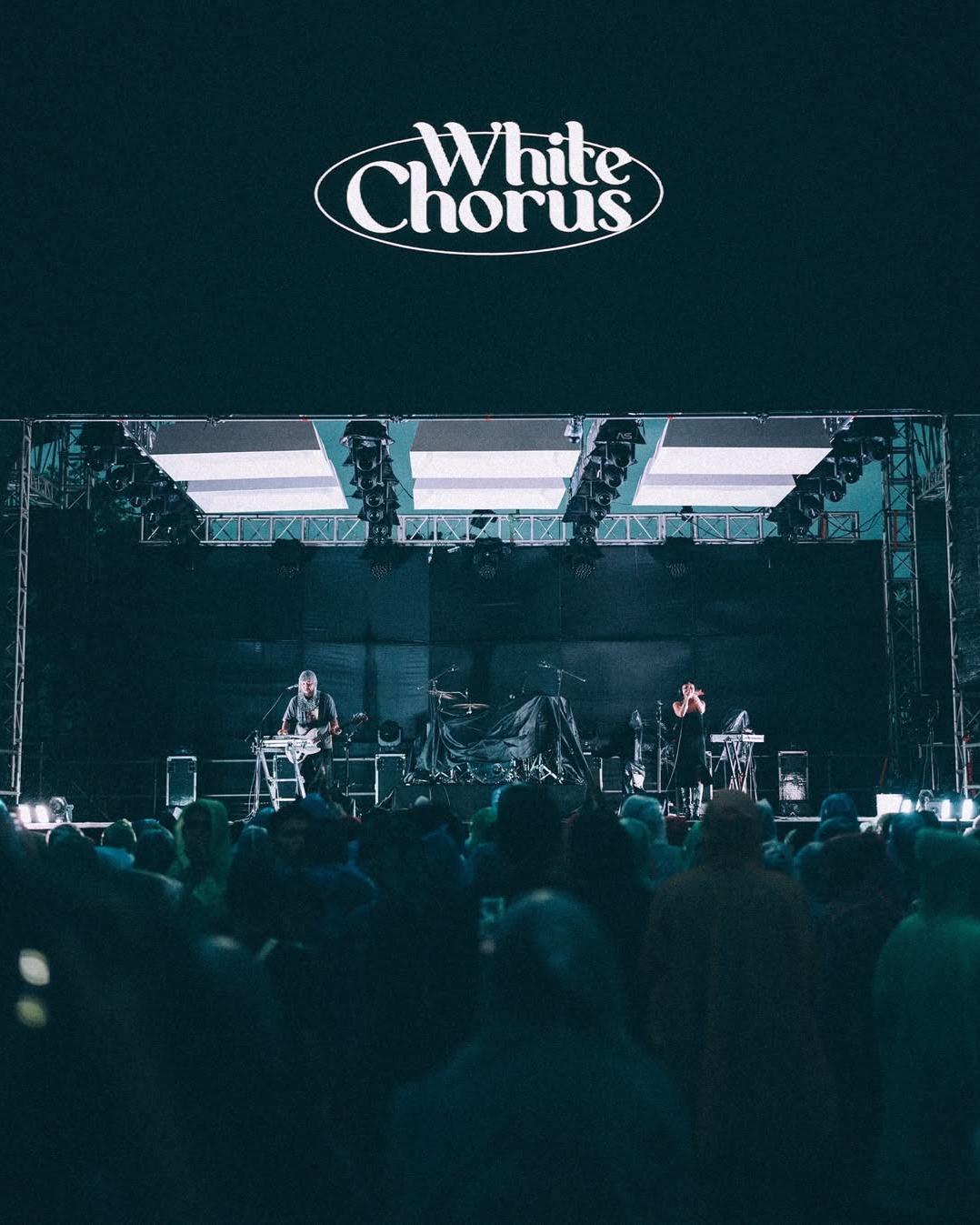
On stage, White Chorus treats visuals as part of the performance rather than decoration. Large LED screens, dark atmospheres, and restrained typography create an immersive environment that feels intentional and focused.
The White Chorus logo appears prominently, surrounded by vast negative space. This approach mirrors their musical direction, minimal, contemplative, and emotionally resonant, allowing the audience to fully inhabit the moment.
The Jakarta concert poster reflects White Chorus’s commitment to clean structure and visual restraint. Set against a neutral background, the composition feels editorial and grounded, with the band presented in a calm, confident stance.
The George typeface dominates the layout without overwhelming it. Spacing, alignment, and hierarchy are carefully considered, resulting in a poster that feels composed, modern, and unmistakably White Chorus.
For their Bali show featuring Hindia as a special guest, White Chorus demonstrates how collaboration can exist without diluting identity. While the presence of another strong musical voice adds new energy to the visual, the core design language remains intact.
The George typeface continues to anchor the composition, acting as a unifying element amid shifts in styling and mood. Rather than competing for attention, the layout allows both artists to coexist within the same visual space, calm, balanced, and intentional.
This poster reflects White Chorus’s understanding of branding as a flexible system. Even in collaboration, they maintain clarity, restraint, and openness, staying true to the idea of a blank canvas that welcomes new voices.
The choice of George is not merely aesthetic. Its editorial tone and contemporary elegance reflect the atmospheric and introspective nature of White Chorus’s sound. In their visual world, typography functions almost like another instrument, silent, but deeply expressive.
For White Chorus, George is not an accessory. It is a foundation. Appearing across logos, posters, and stage visuals, it unifies sound and sight into a single, cohesive experience.